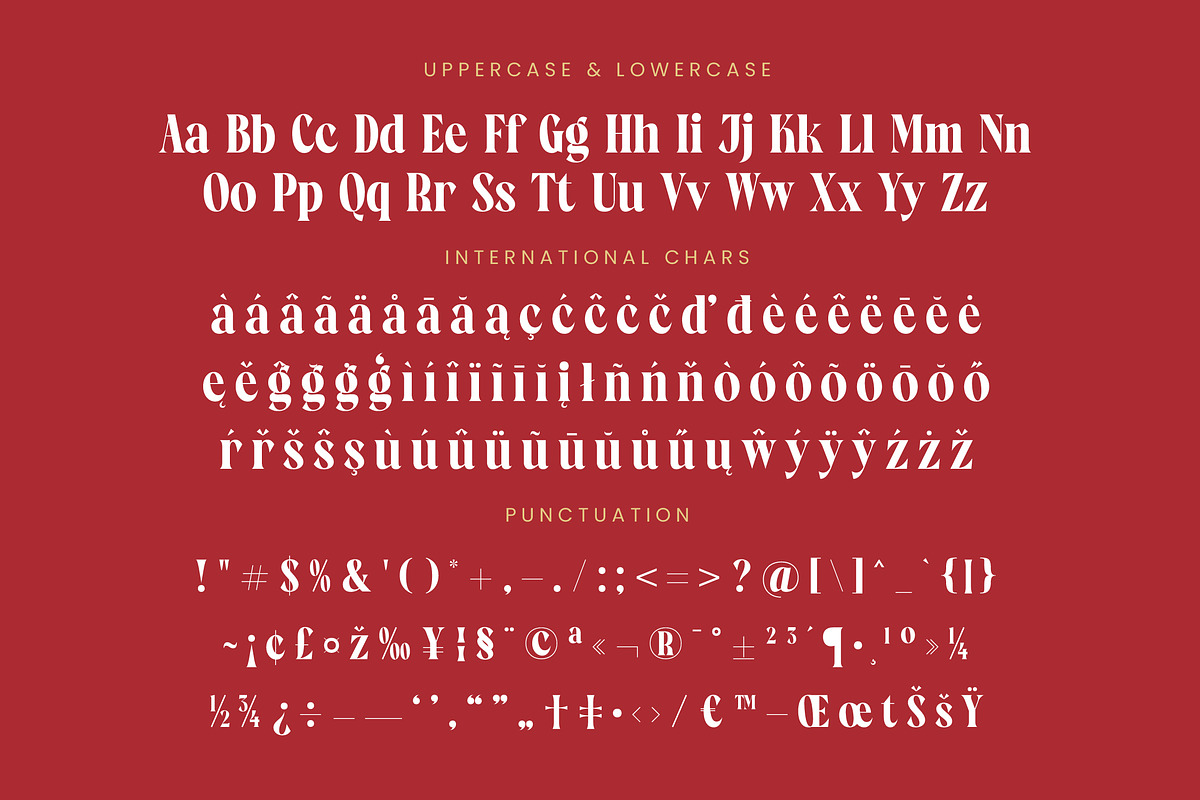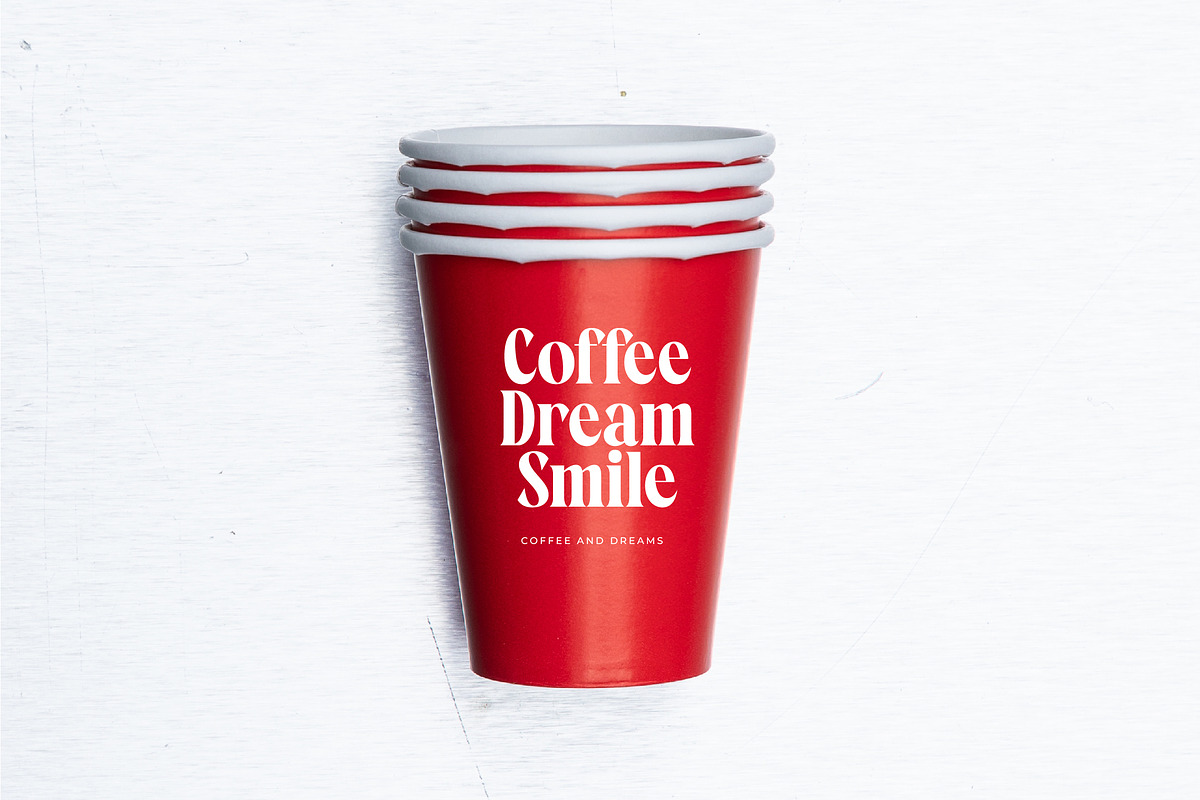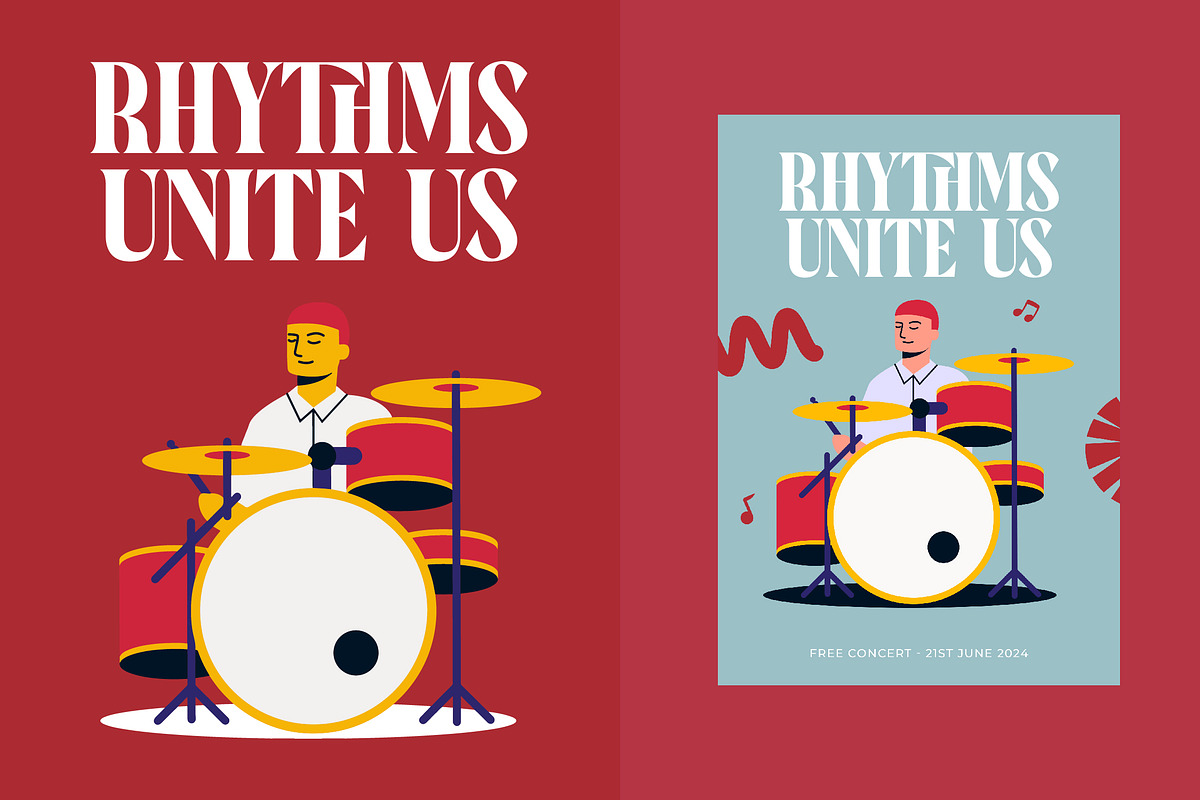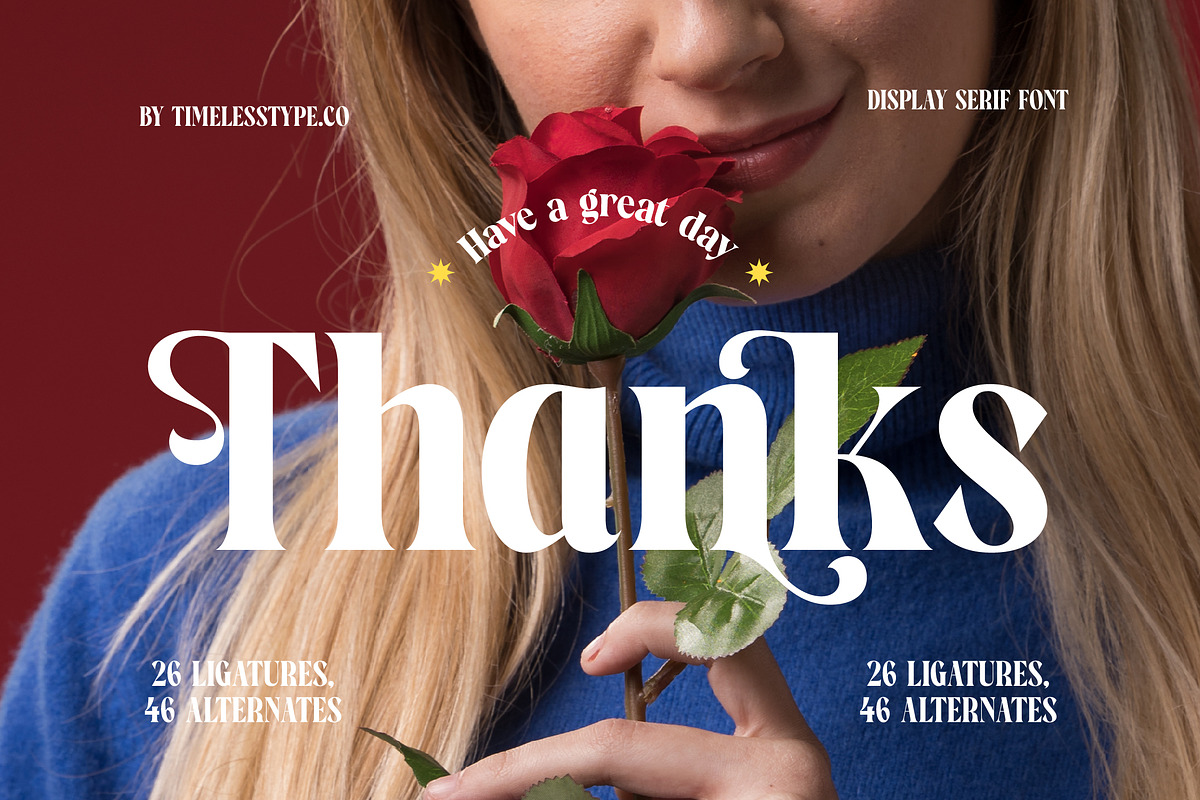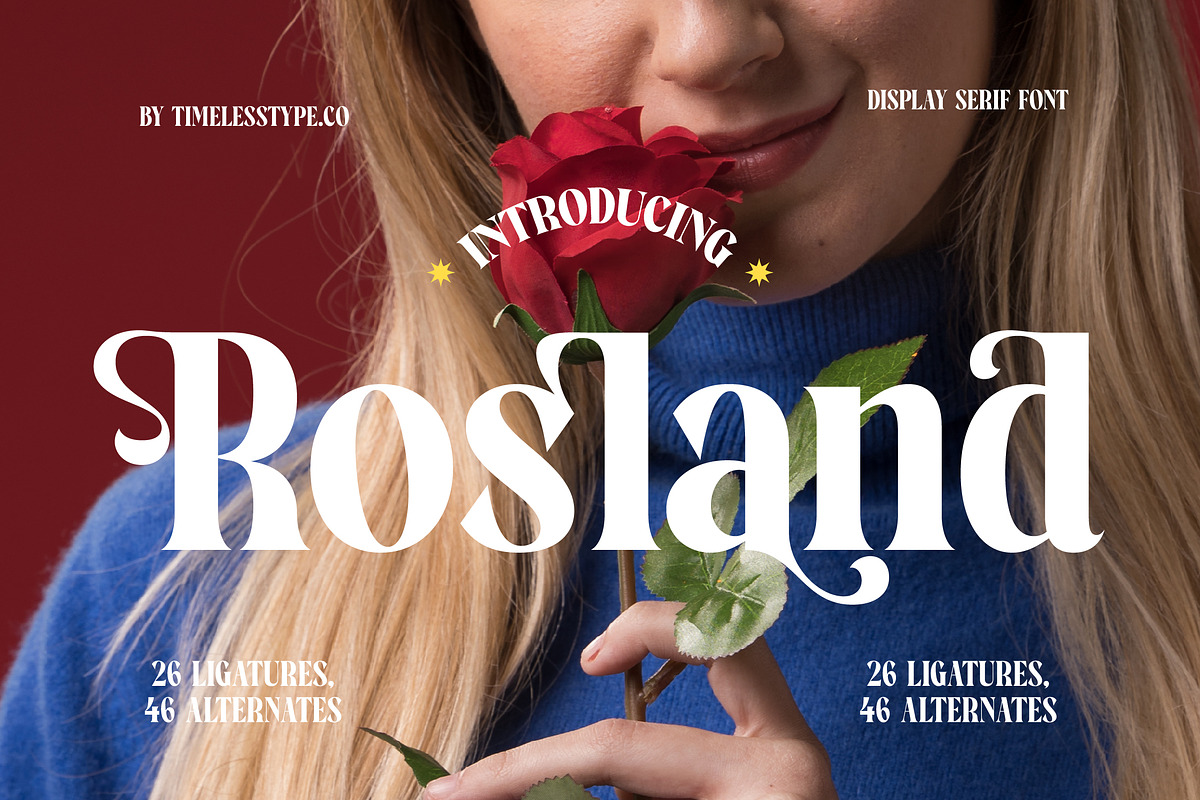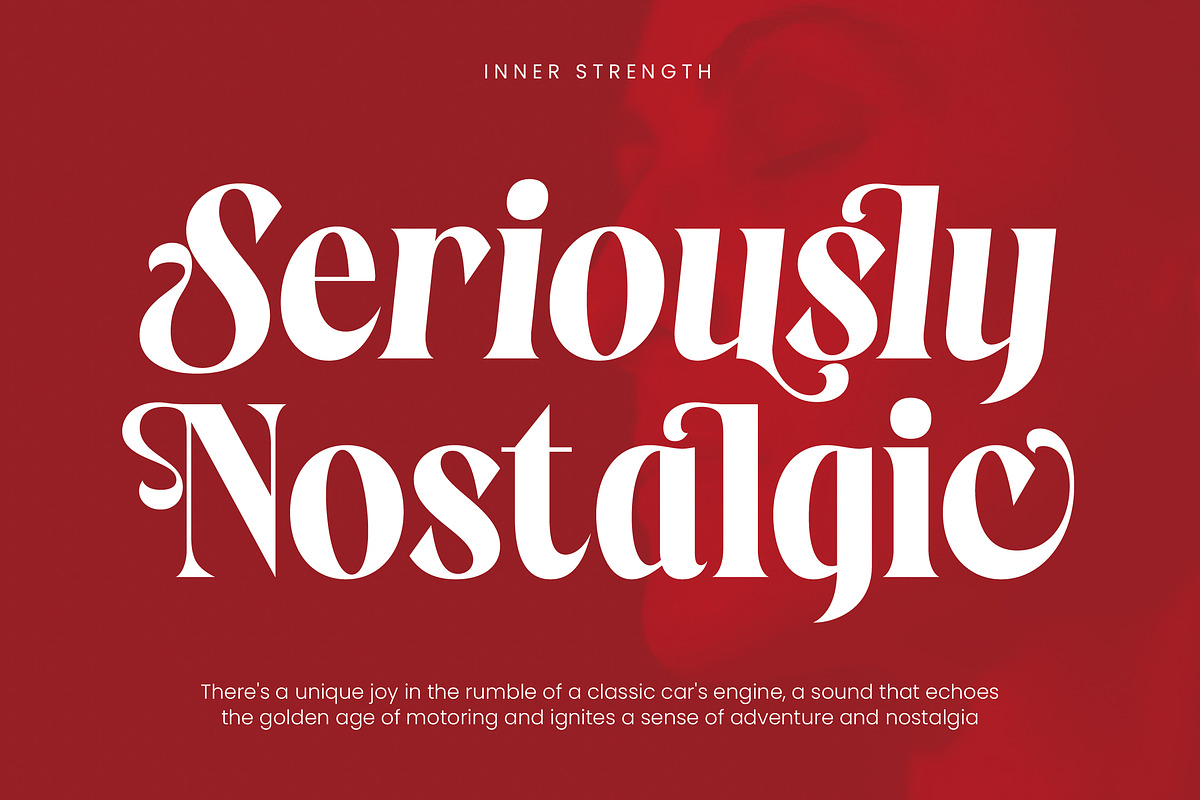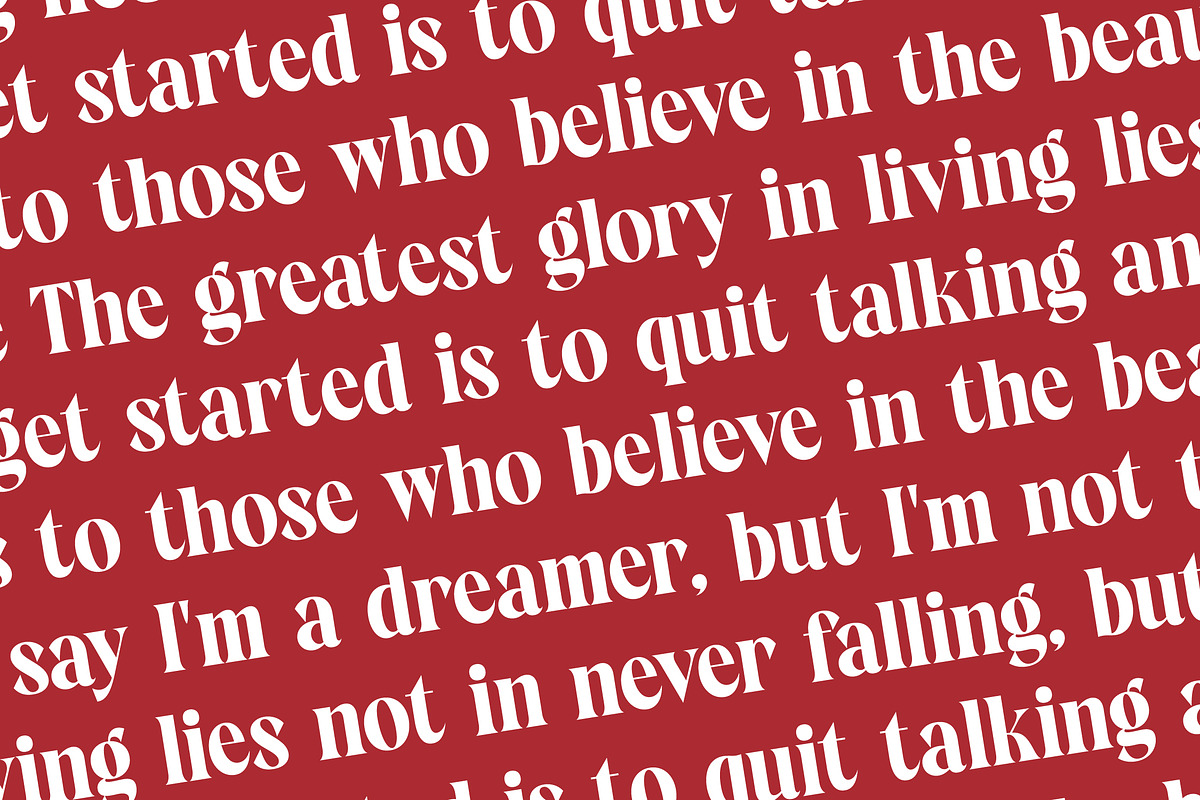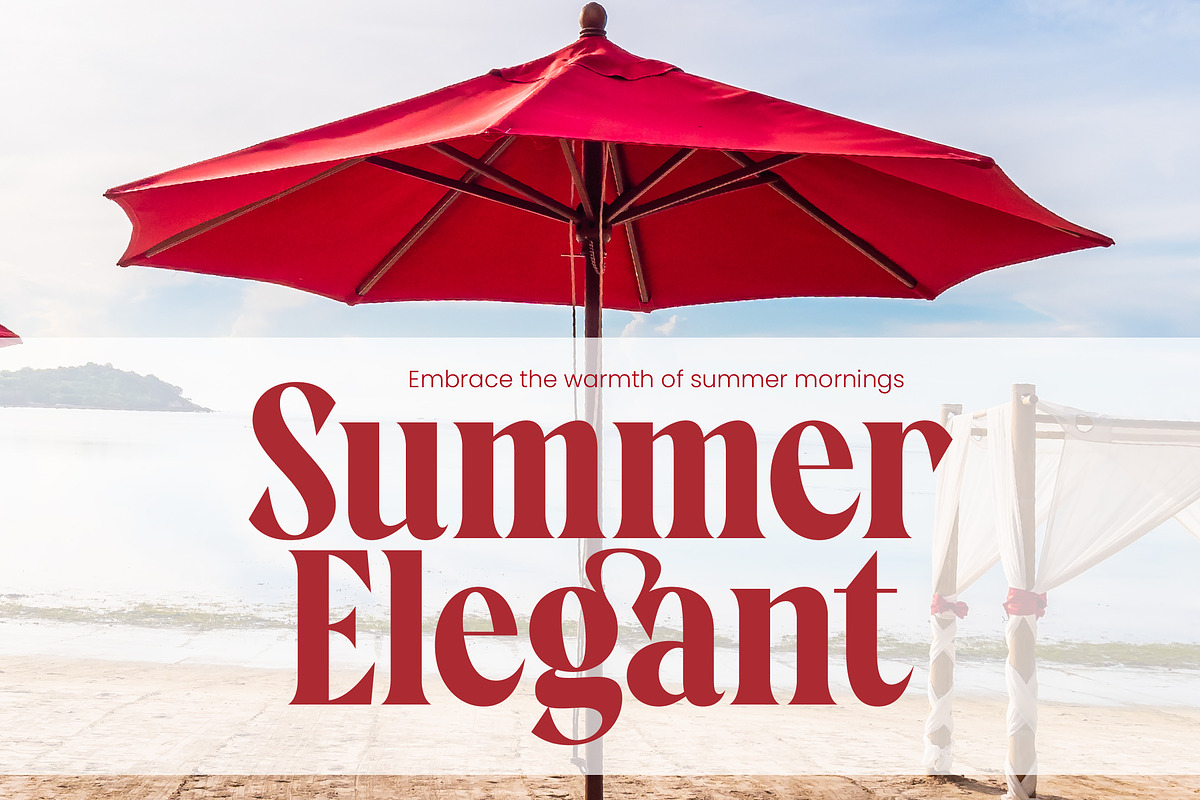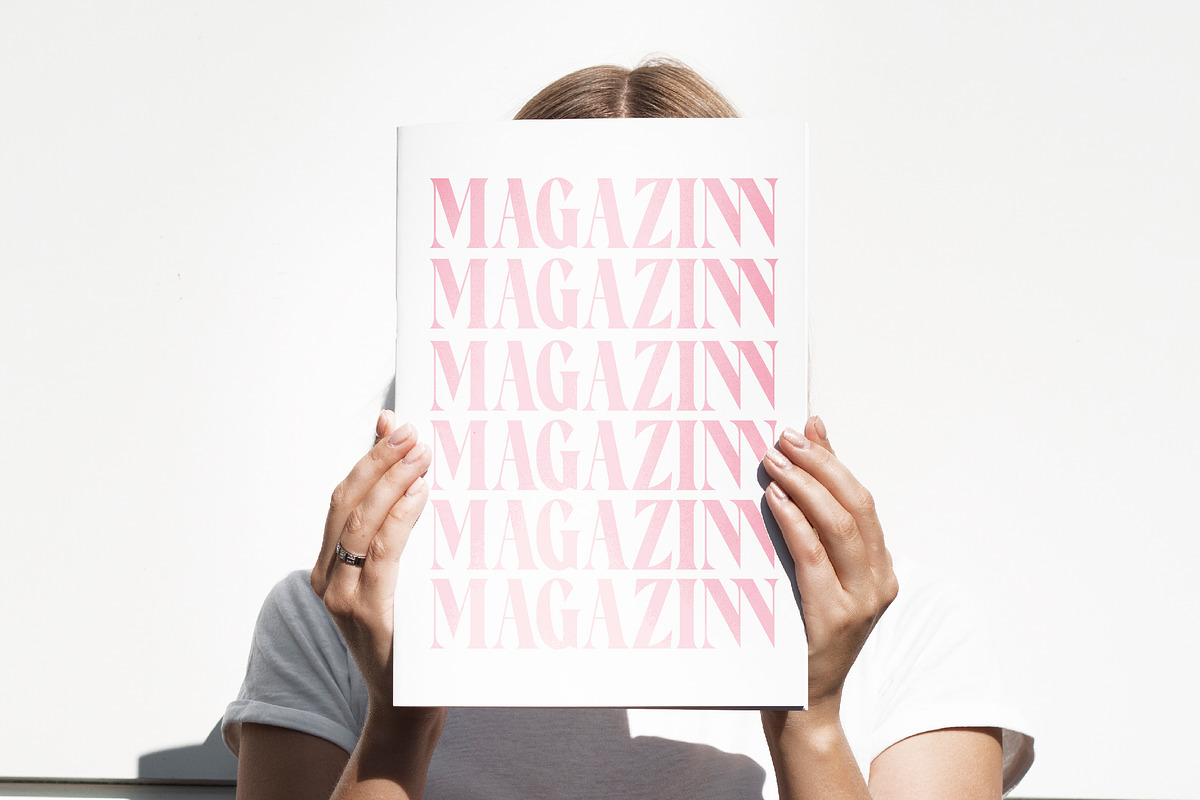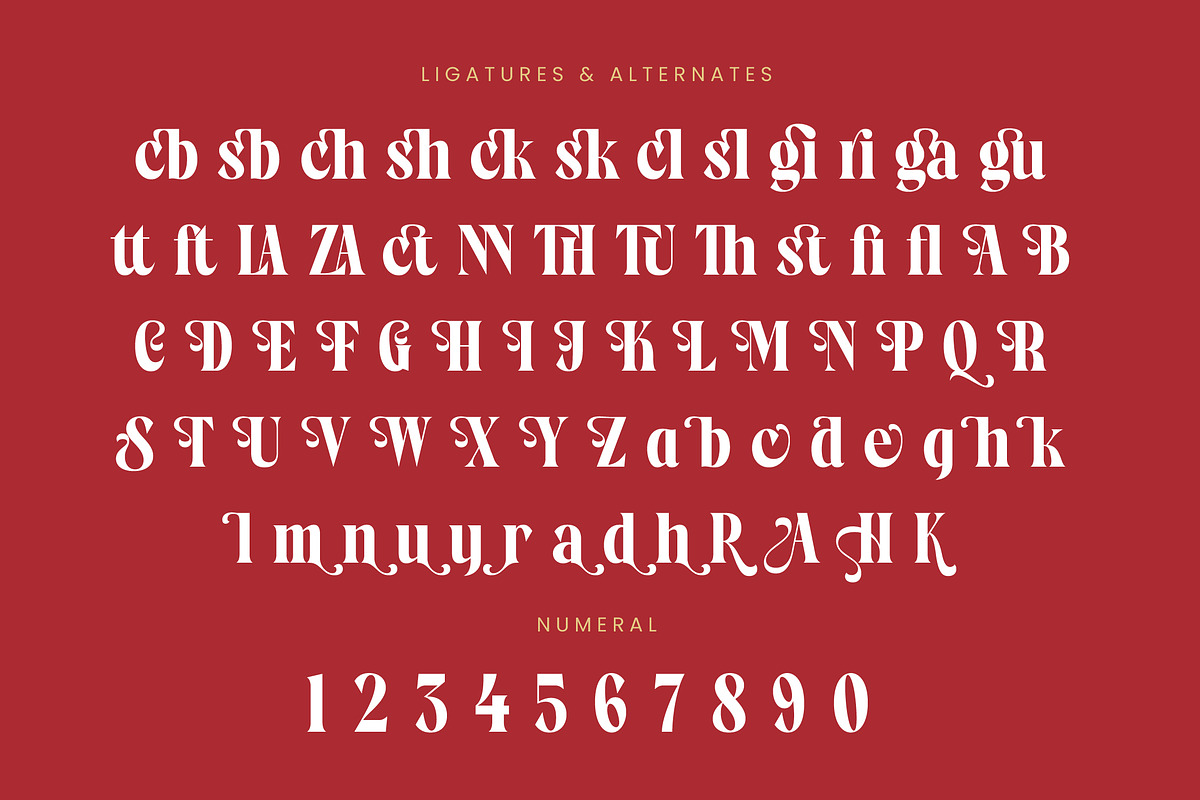
Rosland - Elegant Display Serif
Elevate your creative projects with the timeless grace and sophisticated charm of Rosland, a typeface designed to captivate. This display serif bridges the gap between classic romance and contemporary aesthetics, making every word look like a curated piece of art.
Inspired by the delicate silhouette of a blooming rose and the sweeping curves of traditional calligraphy, this font evokes a sense of vintage luxury. It captures an atmosphere of high-end beauty that feels both nostalgically familiar and strikingly fresh for today's visual landscape.
With its modern serif display qualities, this font is meticulously engineered for luxury typography enthusiasts who demand a high-contrast serif with personality. As a premier editorial font, it delivers a significant branding impact through its unique character shapes and beautifully balanced weight distribution.
Staying aligned with the current modern serif trend, this typeface answers the call for editorial display fonts that offer deep customization. This character-driven typography allows designers to create bespoke identities that resonate with premium audiences and high-fashion sensibilities.
This font is perfectly suited for high-impact logo design and comprehensive visual branding systems that require a signature look. It excels in editorial layouts, luxury packaging, and bespoke wedding stationery, providing a bold yet feminine touch for the fashion industry.
This professional package includes a rich set of 26 ligatures and 46 alternates to provide endless creative flexibility. Featuring decorative swashes and full multilingual support with international characters, it ensures your design message remains clear and beautiful across all global markets.
- Ligature 26 Alternate 46